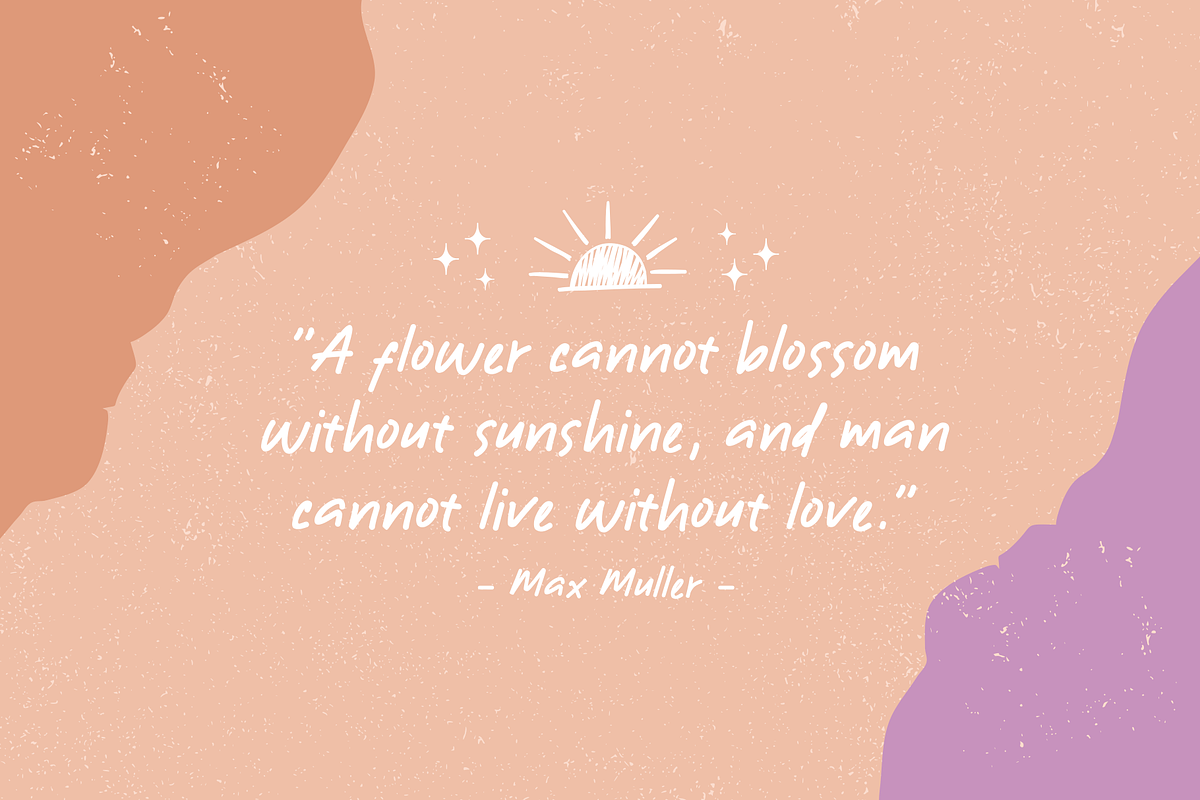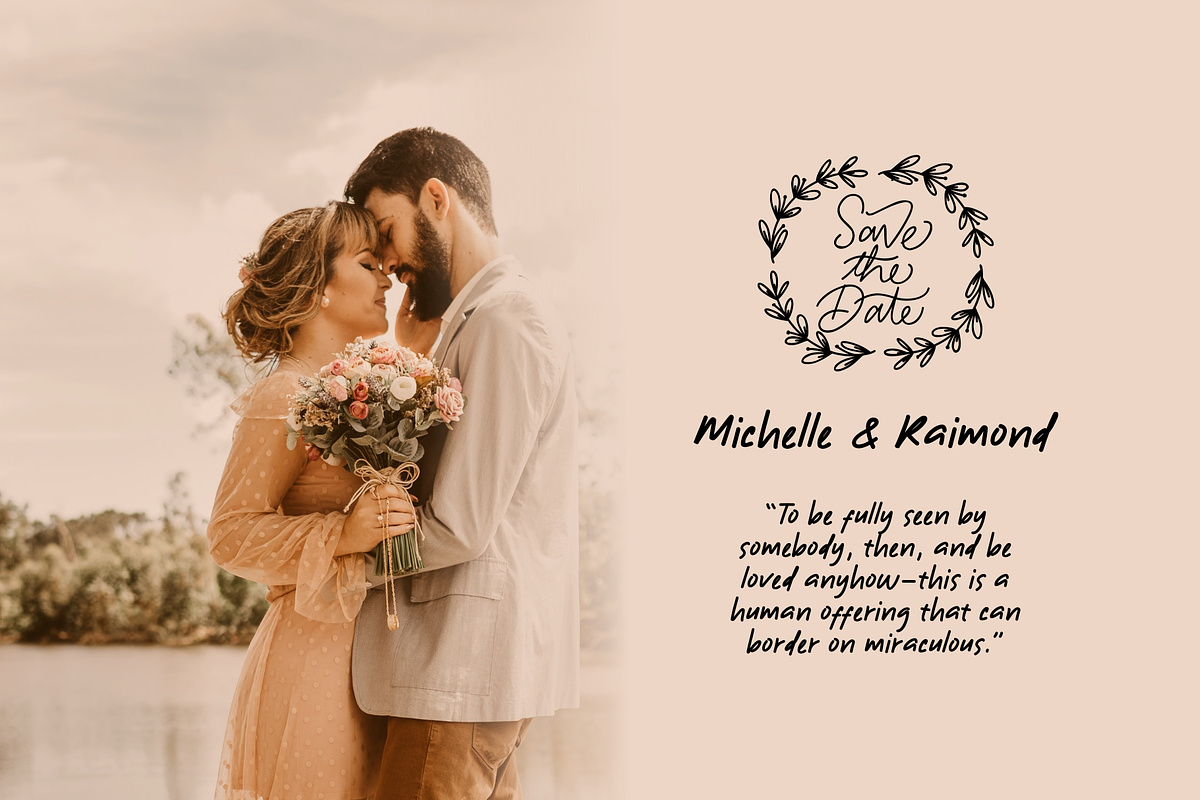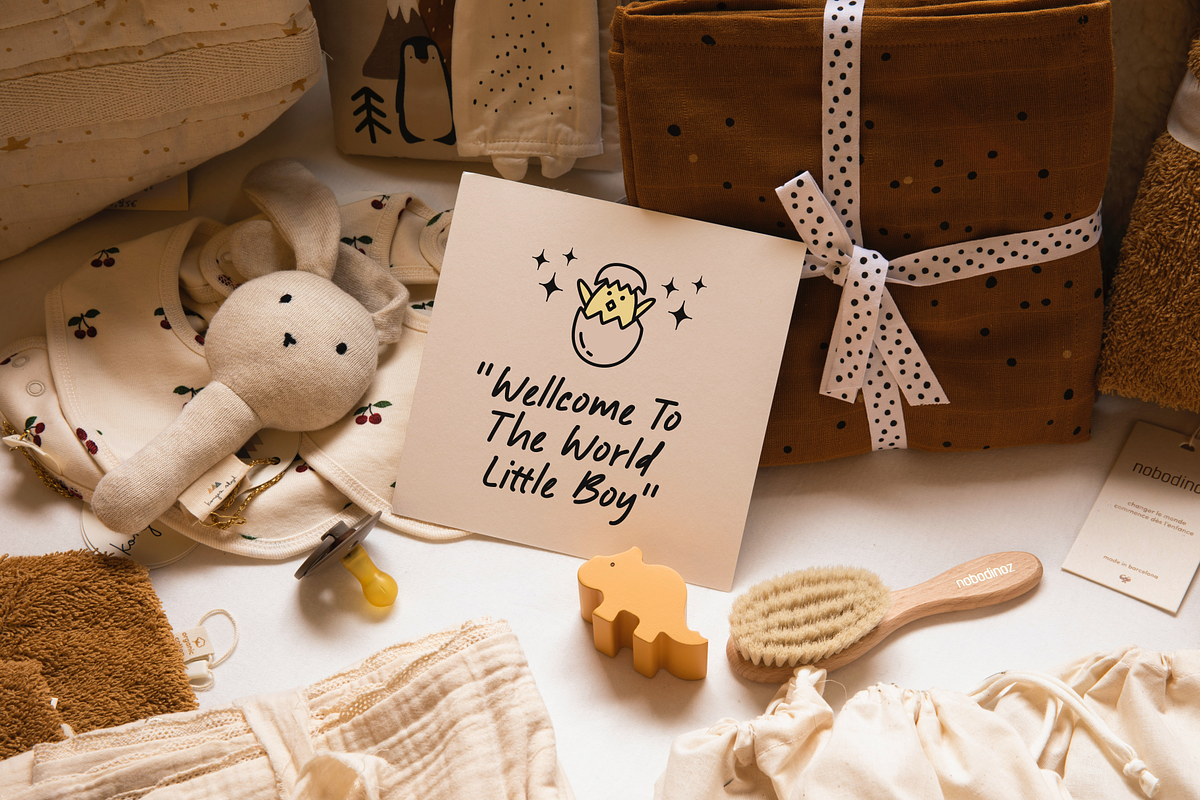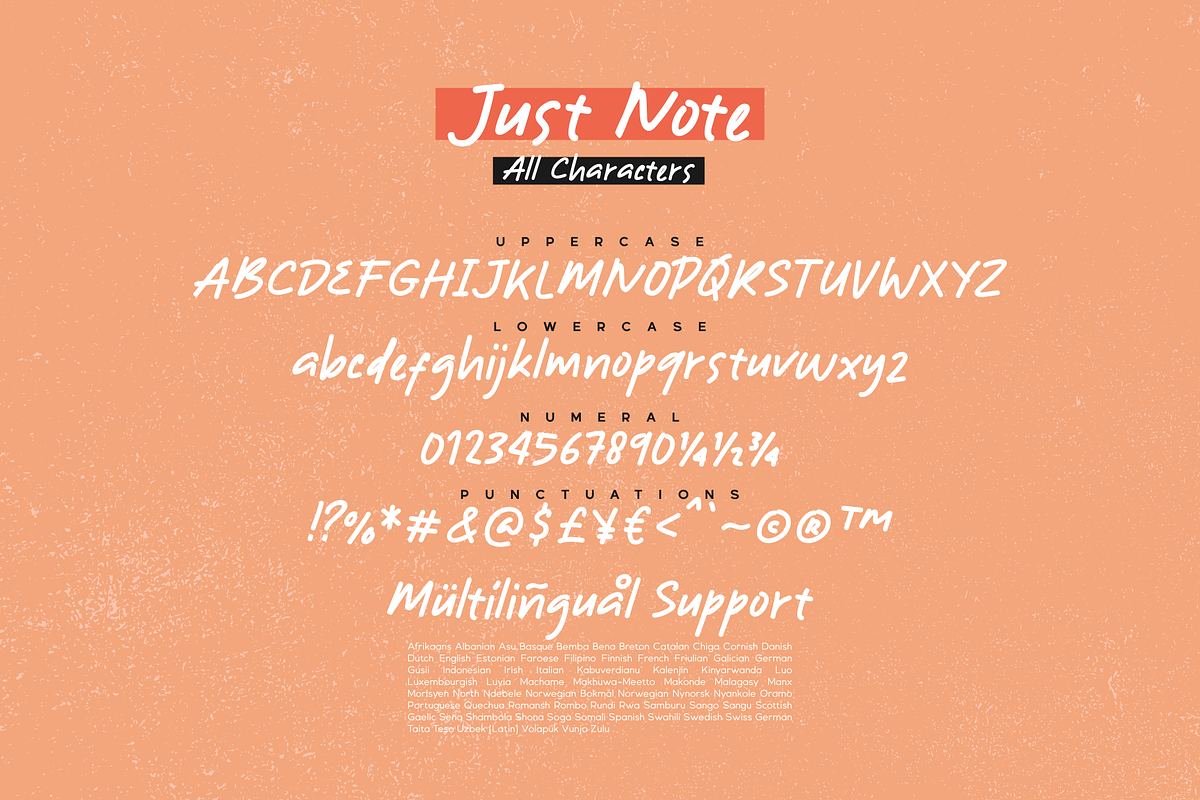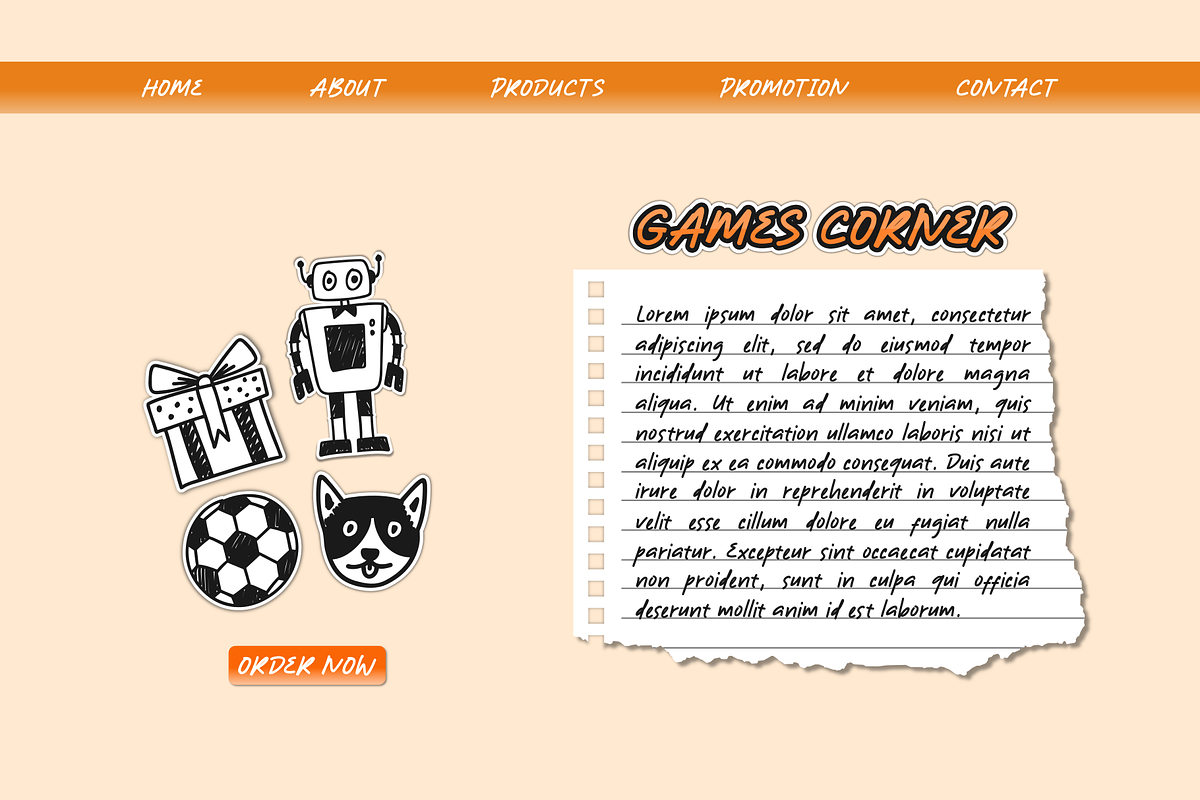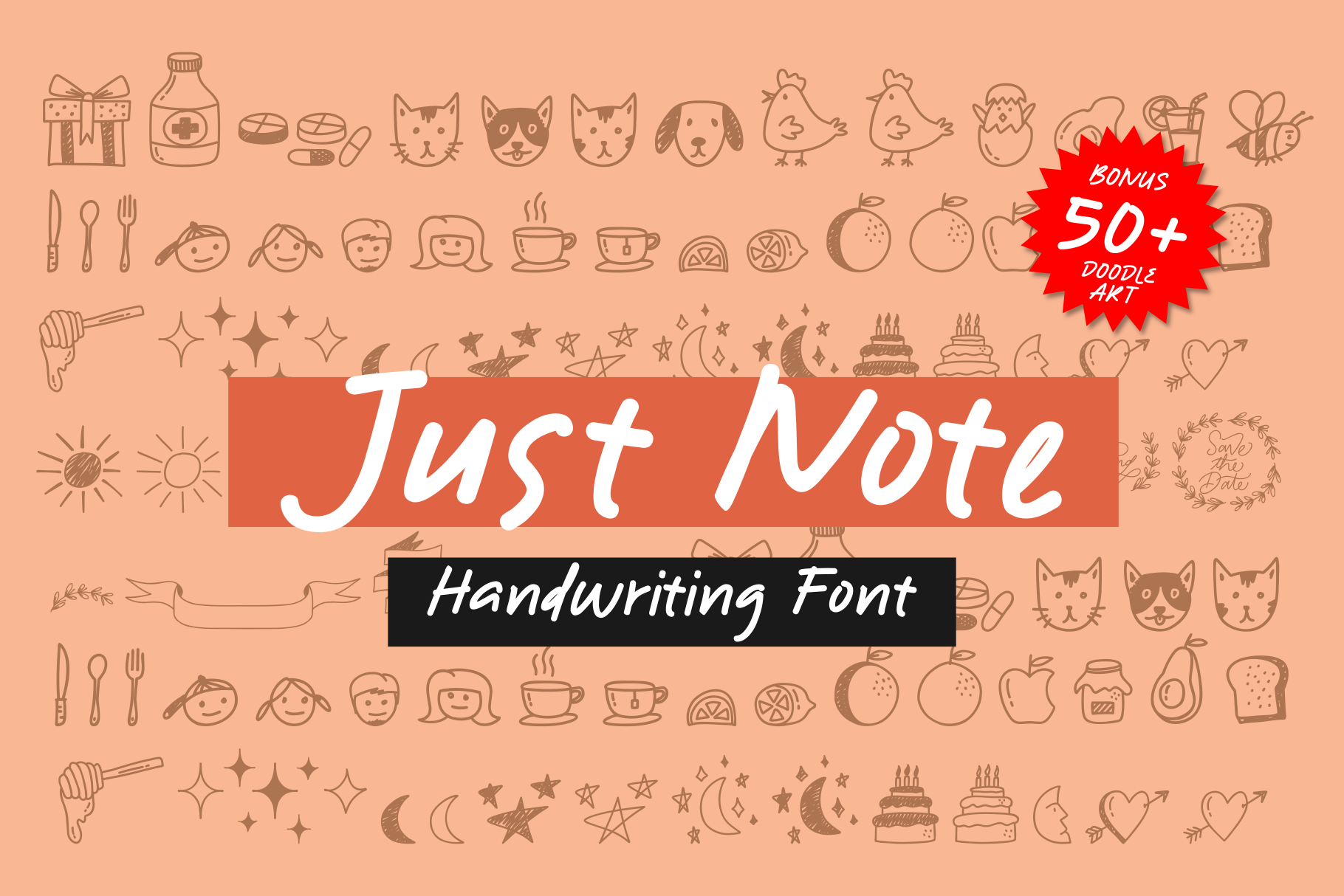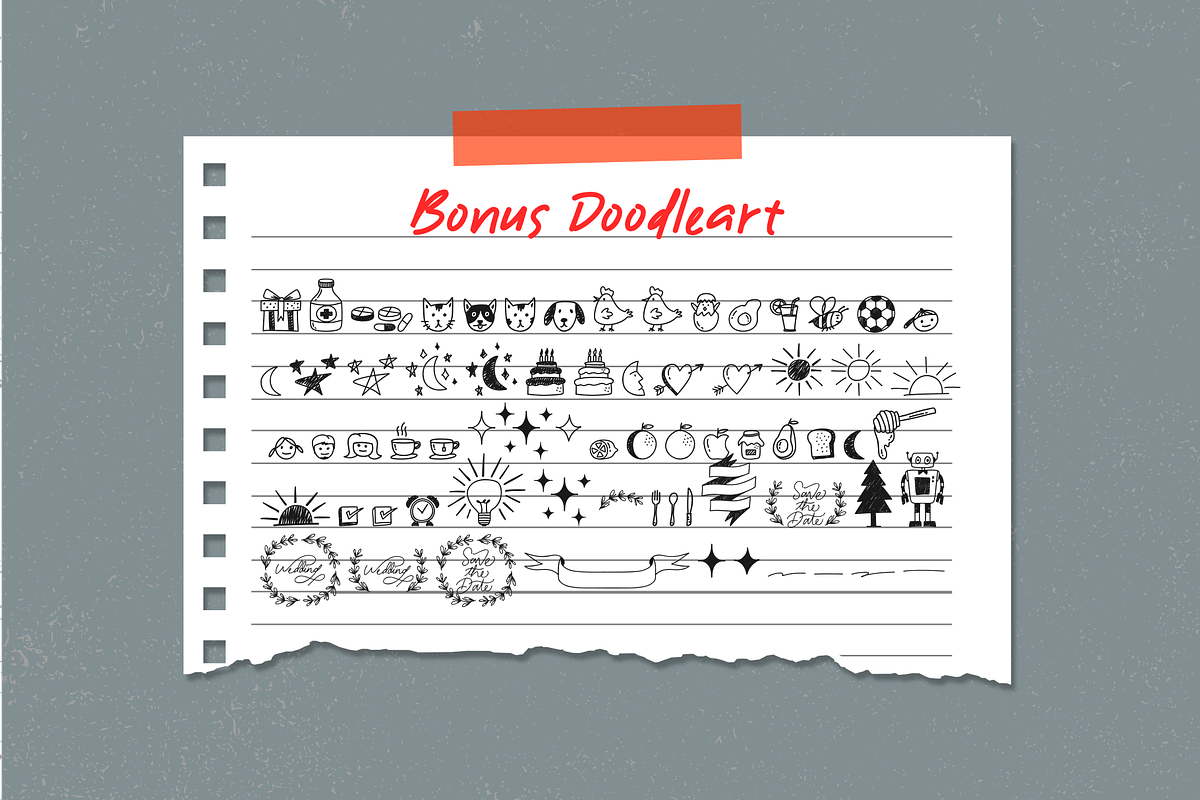
Just Note - Font and Doodle
Introducing the newest font and doodle that called Just Note and Note Doodle. Just Note font is inspired by the sticky notes that we always use to note everything. This font is made with the natural concept of handwriting for more stunning and outstanding we add 50+ of the doodle (Note Doodle) design to complete it so you can mix and match.